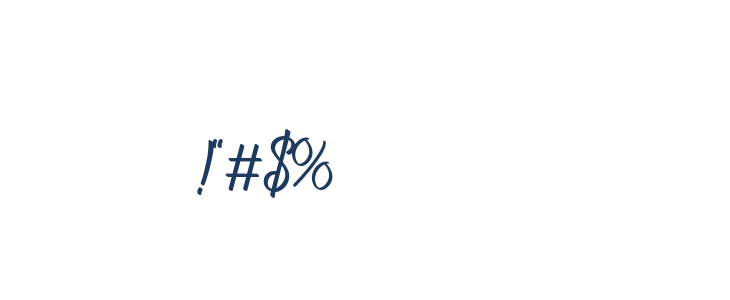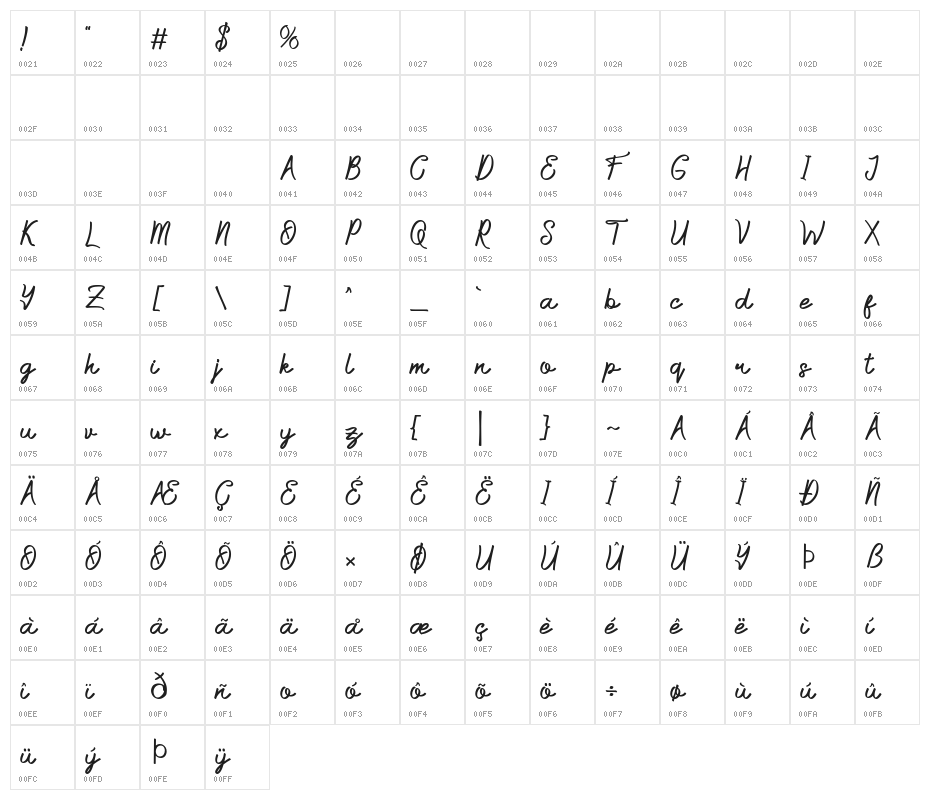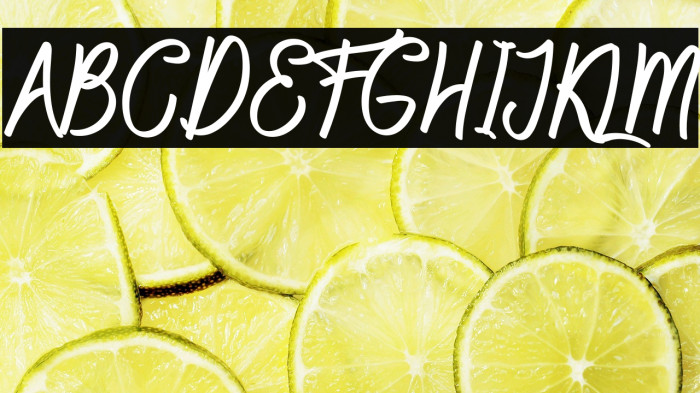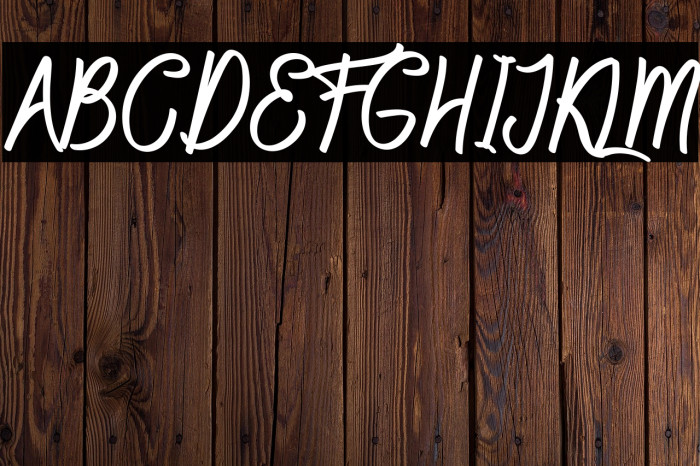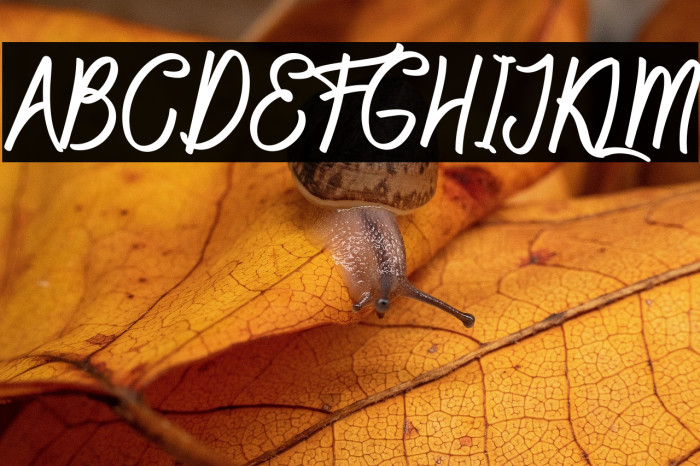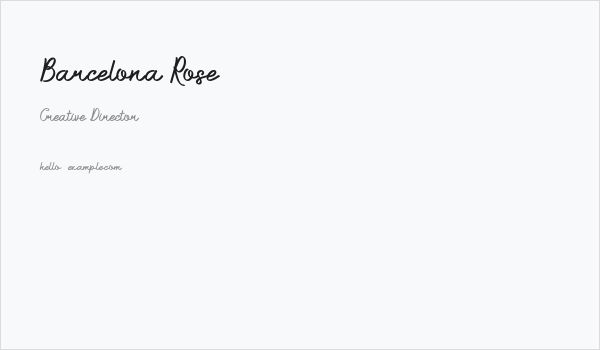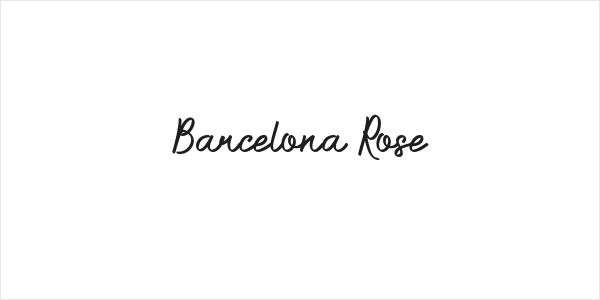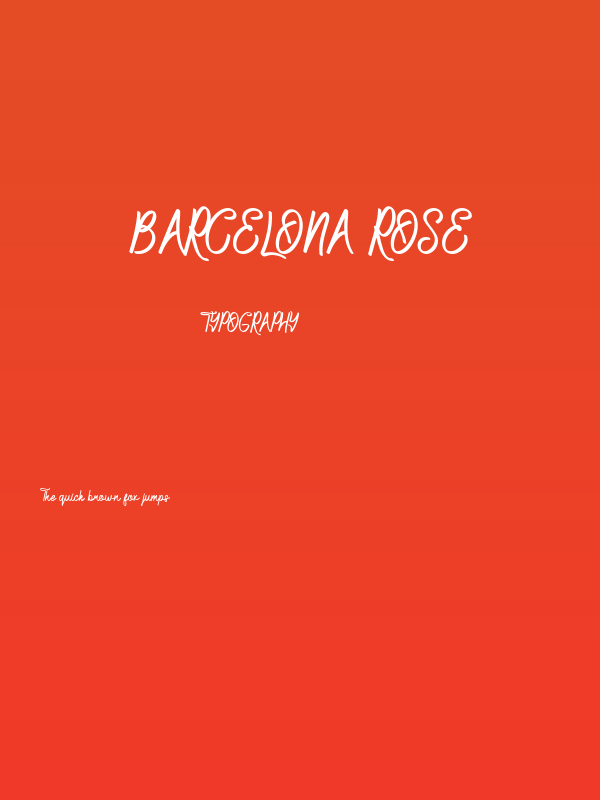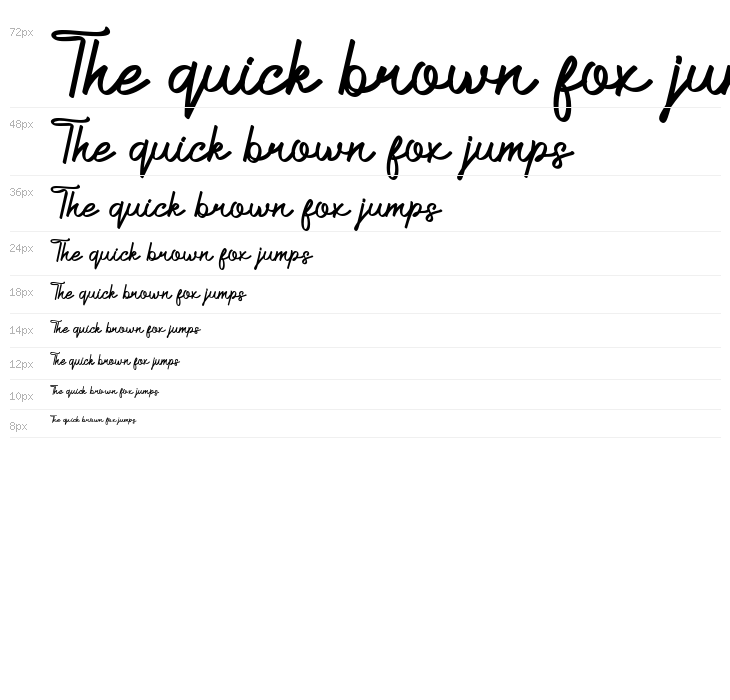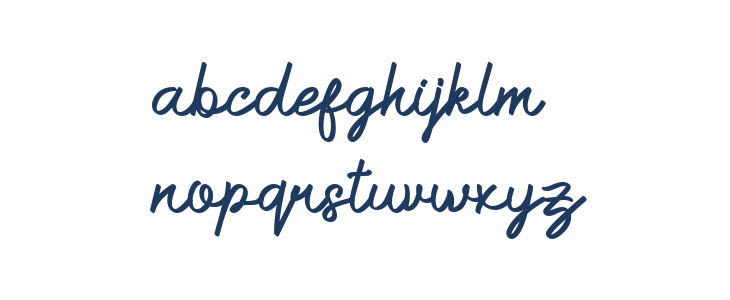
Barcelona Rose Font
Barcelona Rose Description
This font exhibits a lively and dynamic handwritten style, characterized by its fluid and cursive letterforms. The uppercase letters are bold and slightly slanted, giving a sense of movement and energy. The lowercase letters maintain a consistent flow, with smooth connections between each character, enhancing its handwritten appeal. The overall appearance is casual yet elegant, making it suitable for creative and expressive designs. The special characters retain the same playful and informal style, ensuring consistency across all elements.
| Proposed Projects | Ideal for invitations, greeting cards, branding projects, and social media graphics where a personal touch is desired. |